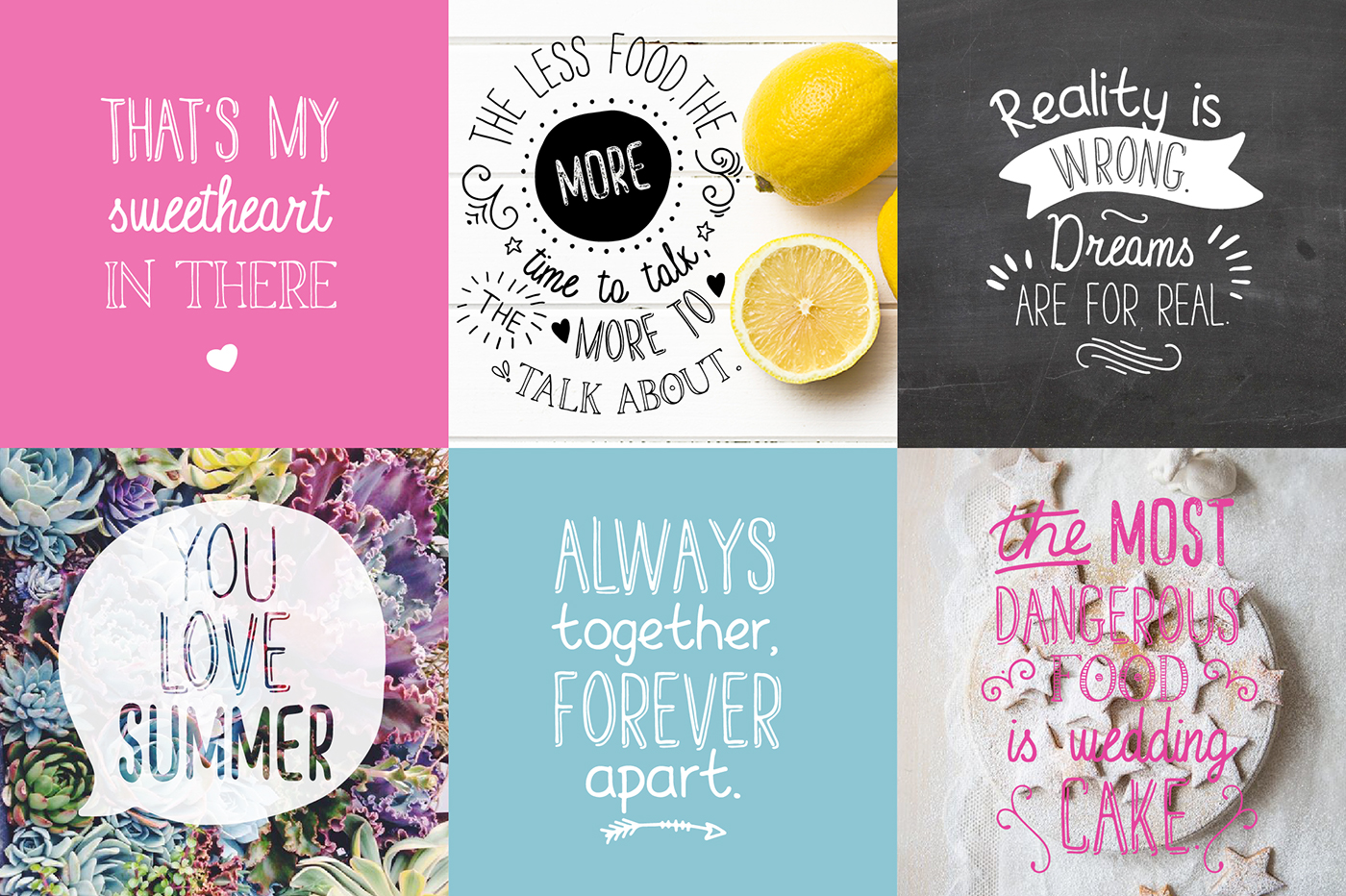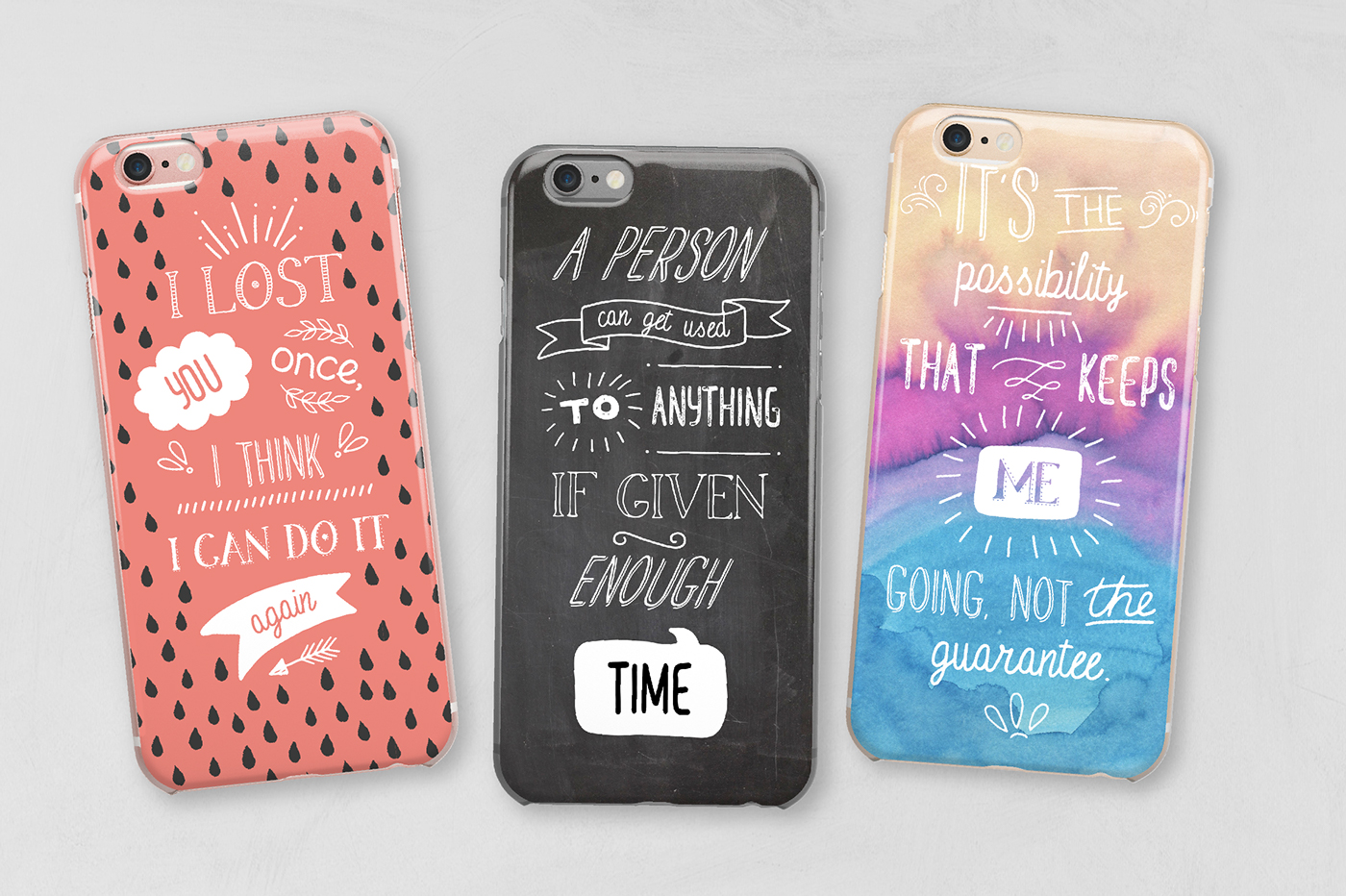
Creativefabrica Joyfully Handwritten Font Best Fonts. Download and install free handwritten fonts of the best quality from free fonts and use on your own personal and business related design purposes. This handwritten font is playful and feminine, and versatile for so many design projects! Votes, rated based on results identification. It is perfect for youthful, fun designs, and it is a perfect font for cricut and silhouette crafters, as i've taken extra time to make sure the font is as. Archive of freely downloadable fonts. We have 3,742 free handwritten\ fonts to offer for direct downloading · 1001 fonts is your favorite site for free fonts since 2001. Browse by alphabetical listing, by style, by author or by popularity. It is extra smooth for cricut and silhouette crafters, making it a great font for vinyl projects! Joyfully handwritten font font 3.45/5. Joyfully is a sweet and feminine handwritten font that is perfect for so many design projects! Joyfully is a fun, playful handwritten font! Earn some good karma by doing it. 1 2 3 4 5 6 7 8 9 10. Joyfully is, as its name suggests, a vibrant and joyfully is, as its name suggests, a vibrant and positive signature script that is great for adding a personal, authentic touch to your next creative idea. I've made this font as smooth as possible for optimal cut performance with cricut and.
Latin script (free fonts) latin script (handwritten fonts) turkish fonts at fontlibrary. Demo donationware free free for personal use public. It is extra smooth for cricut and silhouette crafters, making it a great font for vinyl projects! We have a huge range of regular font products available. Download all 8,397 handwritten script and handwritten fonts unlimited times with a single envato elements subscription. In the age of social media and smartphones, probably, there are people, who top 20 handwriting fonts. Down fonts, dogen, blog fonts online, dafont top, fontsdata, dafont, fontsme, áo.
Here's our list of the 10 best handwritten fonts 2020. .handwritten fonts, free ttf fonts, free fonts for windows, free fonts for linux, free fonts for mac. Down fonts, dogen, blog fonts online, dafont top, fontsdata, dafont, fontsme, áo. Whenever you want a handwritten font for your design, look no more. Browse by alphabetical listing, by style, by author or by popularity. Citruslime script font is a magical monoline handwritten font, carefully created with a touch of elegance. Here's our list of the 10 best handwritten fonts 2020. In the age of social media and smartphones, probably, there are people, who top 20 handwriting fonts. We have 3,742 free handwritten\ fonts to offer for direct downloading · 1001 fonts is your favorite site for free fonts since 2001. Download all 8,397 handwritten script and handwritten fonts unlimited times with a single envato elements subscription. Download and install free handwritten fonts of the best quality from free fonts and use on your own personal and business related design purposes. It is extra smooth for cricut and silhouette crafters, making it a great font for vinyl projects! Handwritten fonts are nothing new, but they've gained popularity over the years. Handwriting fonts are written with a pen, pencil, or marker. Joyfully is a fun, playful handwritten font! I've made this font as smooth as possible for optimal cut performance with cricut and. Handwritten fonts are a natural choice to use in stationery design, such as invitations. From logos to social media graphics to posters, they can bring your designs to life in a fun, unique way. Demo donationware free free for personal use public. Joyfully is a sweet and feminine handwritten font that is perfect for so many design projects! This handwritten font is playful and feminine, and versatile for so many design projects! We have a huge range of regular font products available. You found 8,397 handwritten script and handwritten fonts. Craft a personalized note with one of these. Font name newest most downloads. Earn some good karma by doing it. Joyfully handwritten font font 3.45/5. They could come in a number of different. Writing fonts include both printing and cursive styles and is less artistic than formal calligraphy. Download free handwritten fonts at urbanfonts.com our site carries over 30,000 pc fonts and you can customize your experience with live font previews. Joyfully is, as its name suggests, a vibrant and joyfully is, as its name suggests, a vibrant and positive signature script that is great for adding a personal, authentic touch to your next creative idea.
E390ge99hg9ddm. 1 2 3 4 5 6 7 8 9 10. Joyfully is, as its name suggests, a vibrant and joyfully is, as its name suggests, a vibrant and positive signature script that is great for adding a personal, authentic touch to your next creative idea. Joyfully is a fun, playful handwritten font! Browse by alphabetical listing, by style, by author or by popularity. Votes, rated based on results identification. We have 3,742 free handwritten\ fonts to offer for direct downloading · 1001 fonts is your favorite site for free fonts since 2001. It is extra smooth for cricut and silhouette crafters, making it a great font for vinyl projects! Joyfully is a sweet and feminine handwritten font that is perfect for so many design projects! Archive of freely downloadable fonts. Download and install free handwritten fonts of the best quality from free fonts and use on your own personal and business related design purposes. This handwritten font is playful and feminine, and versatile for so many design projects! I've made this font as smooth as possible for optimal cut performance with cricut and. Earn some good karma by doing it. Joyfully handwritten font font 3.45/5. It is perfect for youthful, fun designs, and it is a perfect font for cricut and silhouette crafters, as i've taken extra time to make sure the font is as.
100 Best Free Handwriting Fonts For Designers 2020 Creativetacos. I've made this font as smooth as possible for optimal cut performance with cricut and. Joyfully is a fun, playful handwritten font! It is perfect for youthful, fun designs, and it is a perfect font for cricut and silhouette crafters, as i've taken extra time to make sure the font is as. Download and install free handwritten fonts of the best quality from free fonts and use on your own personal and business related design purposes. Joyfully is a sweet and feminine handwritten font that is perfect for so many design projects! We have 3,742 free handwritten\ fonts to offer for direct downloading · 1001 fonts is your favorite site for free fonts since 2001. Votes, rated based on results identification. Browse by alphabetical listing, by style, by author or by popularity. 1 2 3 4 5 6 7 8 9 10. Archive of freely downloadable fonts. Earn some good karma by doing it. This handwritten font is playful and feminine, and versatile for so many design projects! Joyfully handwritten font font 3.45/5. Joyfully is, as its name suggests, a vibrant and joyfully is, as its name suggests, a vibrant and positive signature script that is great for adding a personal, authentic touch to your next creative idea. It is extra smooth for cricut and silhouette crafters, making it a great font for vinyl projects!
100 Best Free Handwriting Fonts For Designers 2020 Creativetacos. Joyfully is a sweet and feminine handwritten font that is perfect for so many design projects! Joyfully is, as its name suggests, a vibrant and joyfully is, as its name suggests, a vibrant and positive signature script that is great for adding a personal, authentic touch to your next creative idea. I've made this font as smooth as possible for optimal cut performance with cricut and. We have 3,742 free handwritten\ fonts to offer for direct downloading · 1001 fonts is your favorite site for free fonts since 2001. Archive of freely downloadable fonts. It is extra smooth for cricut and silhouette crafters, making it a great font for vinyl projects! It is perfect for youthful, fun designs, and it is a perfect font for cricut and silhouette crafters, as i've taken extra time to make sure the font is as. Joyfully handwritten font font 3.45/5. Download and install free handwritten fonts of the best quality from free fonts and use on your own personal and business related design purposes. Votes, rated based on results identification. Browse by alphabetical listing, by style, by author or by popularity. 1 2 3 4 5 6 7 8 9 10. Joyfully is a fun, playful handwritten font! This handwritten font is playful and feminine, and versatile for so many design projects! Earn some good karma by doing it.
Stunning Script Fonts Creative Market. Archive of freely downloadable fonts. This handwritten font is playful and feminine, and versatile for so many design projects! It is extra smooth for cricut and silhouette crafters, making it a great font for vinyl projects! It is perfect for youthful, fun designs, and it is a perfect font for cricut and silhouette crafters, as i've taken extra time to make sure the font is as. Votes, rated based on results identification. Download and install free handwritten fonts of the best quality from free fonts and use on your own personal and business related design purposes. Browse by alphabetical listing, by style, by author or by popularity. 1 2 3 4 5 6 7 8 9 10. Joyfully is a sweet and feminine handwritten font that is perfect for so many design projects! Joyfully is, as its name suggests, a vibrant and joyfully is, as its name suggests, a vibrant and positive signature script that is great for adding a personal, authentic touch to your next creative idea. Joyfully is a fun, playful handwritten font! Joyfully handwritten font font 3.45/5. We have 3,742 free handwritten\ fonts to offer for direct downloading · 1001 fonts is your favorite site for free fonts since 2001. Earn some good karma by doing it. I've made this font as smooth as possible for optimal cut performance with cricut and.
25445 Script Handwritten Fonts 2020 Creative Fabrica. Joyfully is, as its name suggests, a vibrant and joyfully is, as its name suggests, a vibrant and positive signature script that is great for adding a personal, authentic touch to your next creative idea. Votes, rated based on results identification. 1 2 3 4 5 6 7 8 9 10. I've made this font as smooth as possible for optimal cut performance with cricut and. Archive of freely downloadable fonts. It is perfect for youthful, fun designs, and it is a perfect font for cricut and silhouette crafters, as i've taken extra time to make sure the font is as. It is extra smooth for cricut and silhouette crafters, making it a great font for vinyl projects! Browse by alphabetical listing, by style, by author or by popularity. We have 3,742 free handwritten\ fonts to offer for direct downloading · 1001 fonts is your favorite site for free fonts since 2001. Joyfully is a sweet and feminine handwritten font that is perfect for so many design projects! Download and install free handwritten fonts of the best quality from free fonts and use on your own personal and business related design purposes. Earn some good karma by doing it. This handwritten font is playful and feminine, and versatile for so many design projects! Joyfully handwritten font font 3.45/5. Joyfully is a fun, playful handwritten font!
500 Gambar Script Handwritten Fonts Terbaik Di 2020 Font Tipografi Font Gratis Monogram Logo. It is perfect for youthful, fun designs, and it is a perfect font for cricut and silhouette crafters, as i've taken extra time to make sure the font is as. Votes, rated based on results identification. This handwritten font is playful and feminine, and versatile for so many design projects! Joyfully is a sweet and feminine handwritten font that is perfect for so many design projects! It is extra smooth for cricut and silhouette crafters, making it a great font for vinyl projects! I've made this font as smooth as possible for optimal cut performance with cricut and. Earn some good karma by doing it. Archive of freely downloadable fonts. Joyfully handwritten font font 3.45/5. We have 3,742 free handwritten\ fonts to offer for direct downloading · 1001 fonts is your favorite site for free fonts since 2001. Joyfully is, as its name suggests, a vibrant and joyfully is, as its name suggests, a vibrant and positive signature script that is great for adding a personal, authentic touch to your next creative idea. Browse by alphabetical listing, by style, by author or by popularity. Download and install free handwritten fonts of the best quality from free fonts and use on your own personal and business related design purposes. 1 2 3 4 5 6 7 8 9 10. Joyfully is a fun, playful handwritten font!
.handwritten fonts, free ttf fonts, free fonts for windows, free fonts for linux, free fonts for mac. Joyfully is a sweet and feminine handwritten font that is perfect for so many design projects! Handwriting fonts are written with a pen, pencil, or marker. Font name newest most downloads. Down fonts, dogen, blog fonts online, dafont top, fontsdata, dafont, fontsme, áo. It is extra smooth for cricut and silhouette crafters, making it a great font for vinyl projects! Citruslime script font is a magical monoline handwritten font, carefully created with a touch of elegance. The handwritten font has slightly skewed letters that lean both right and left. Handwritten fonts are nothing new, but they've gained popularity over the years. Craft a personalized note with one of these.